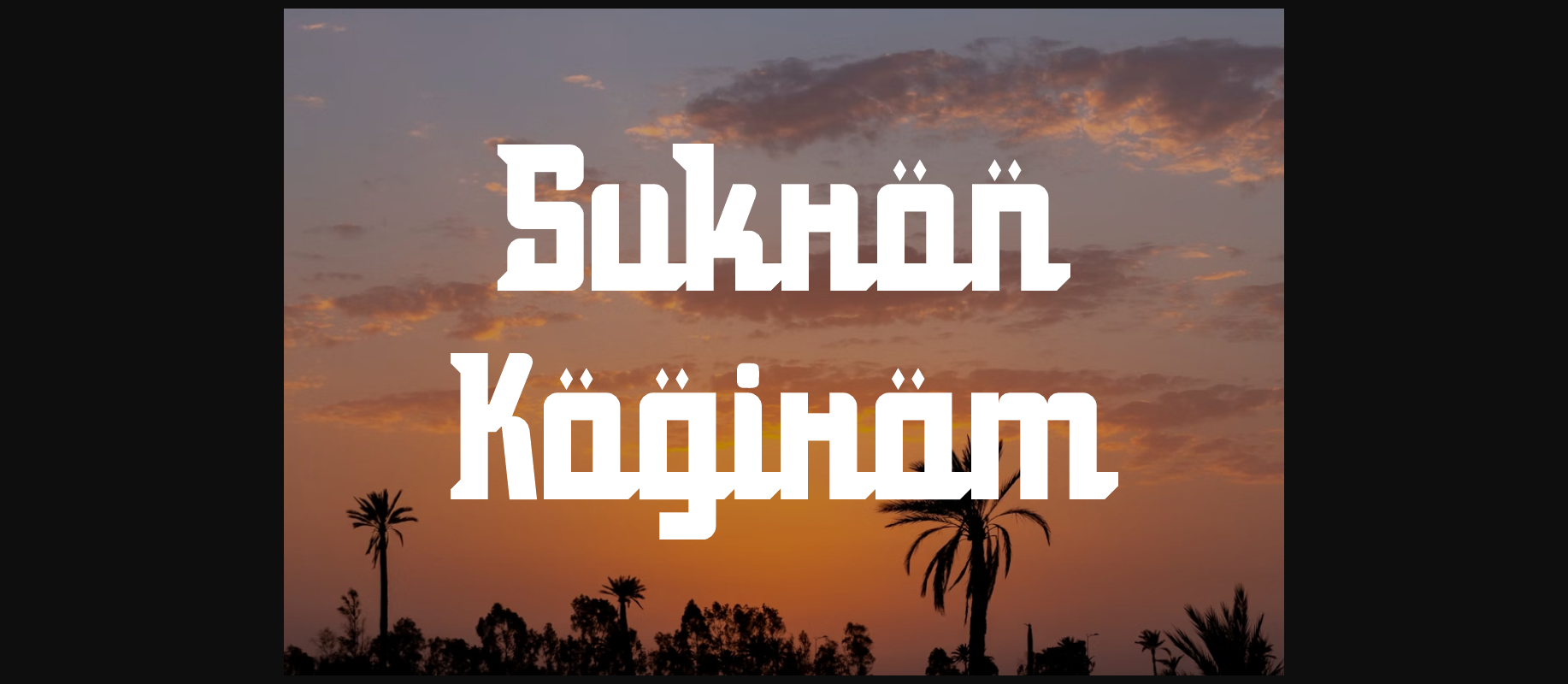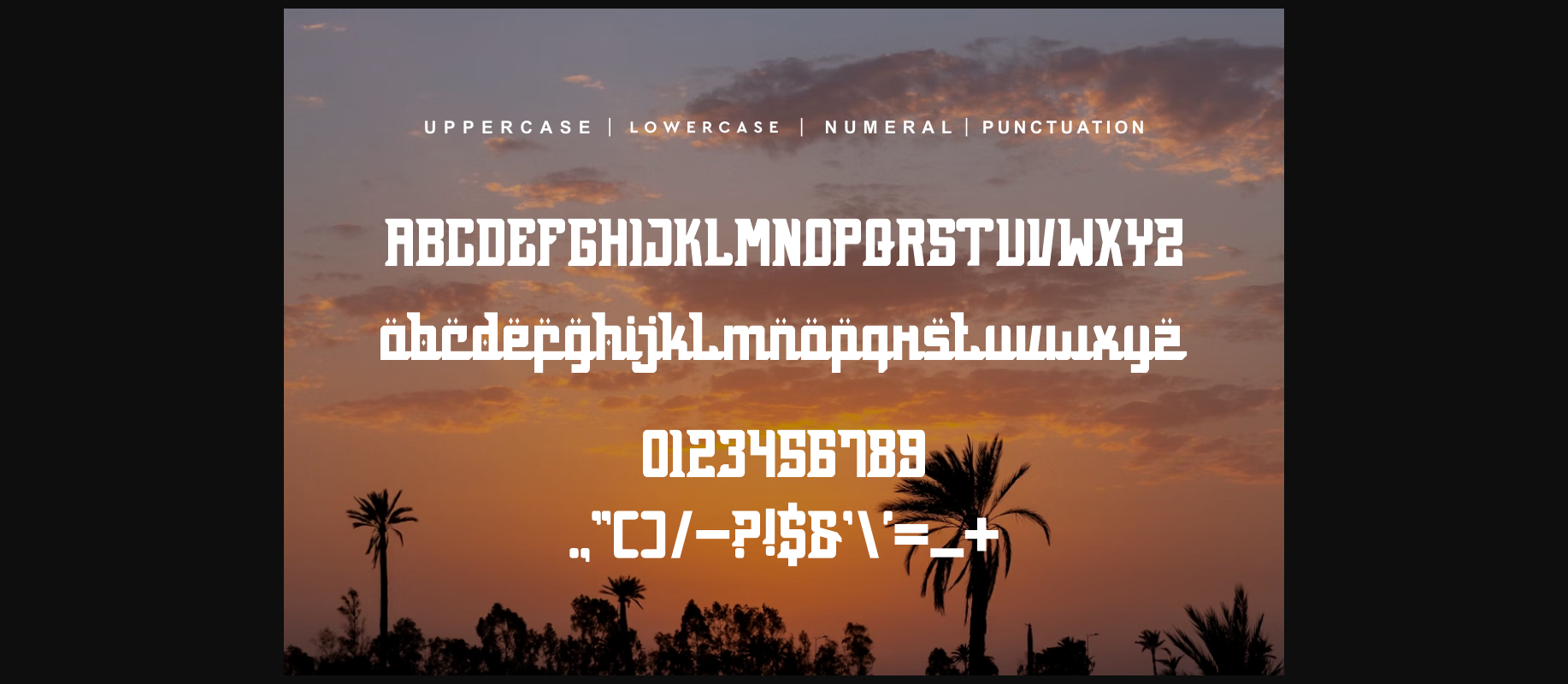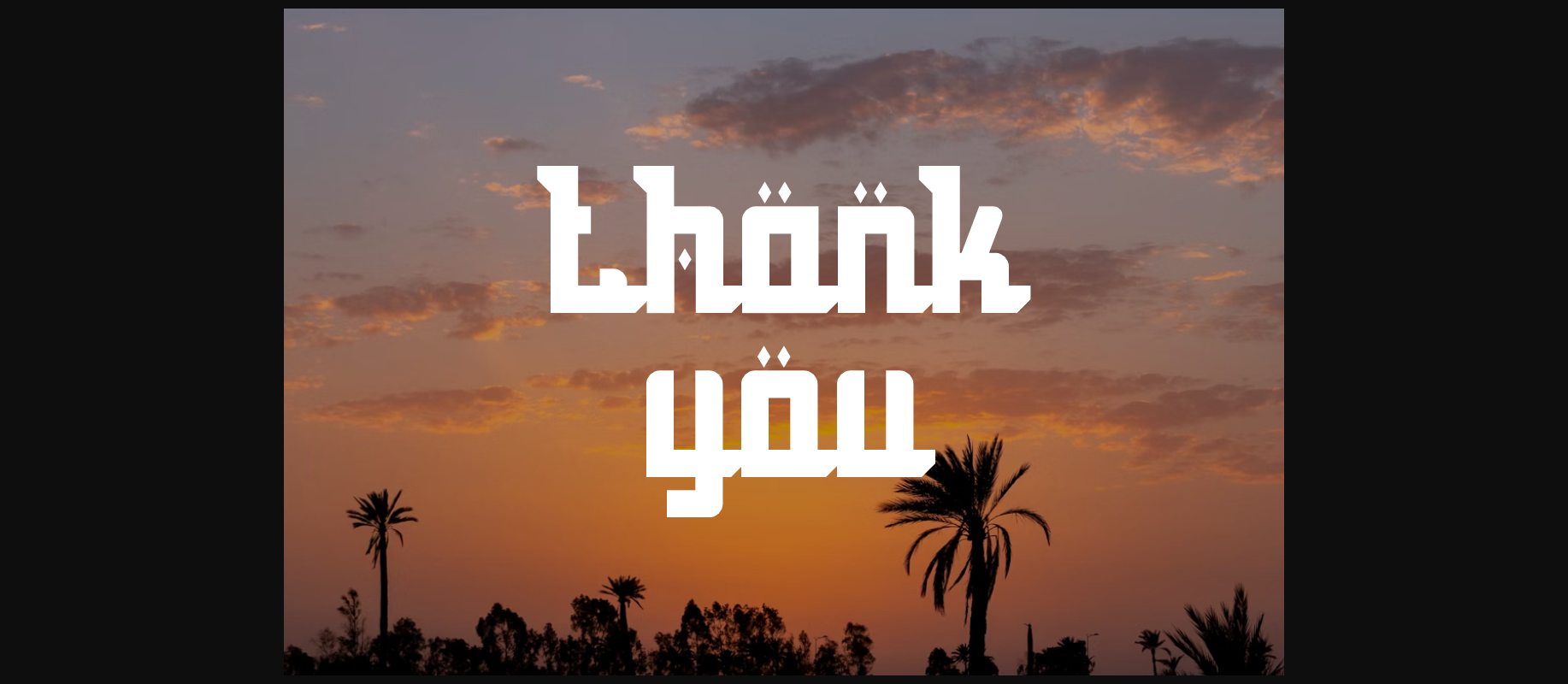
Sukron Kogiram Font
About Sukron Kogiram Font
Introducing Sukron Kogiram, a one-of-a-kind font that stands alone in originality. Masterfully designed for creative endeavors from movie screens to posters, band gig signage to eye-catching album covers, and distinctive logos. This versatile font is a ready-to-use tool for your design arsenal.